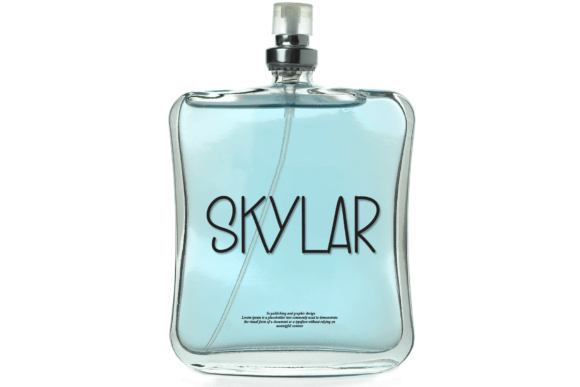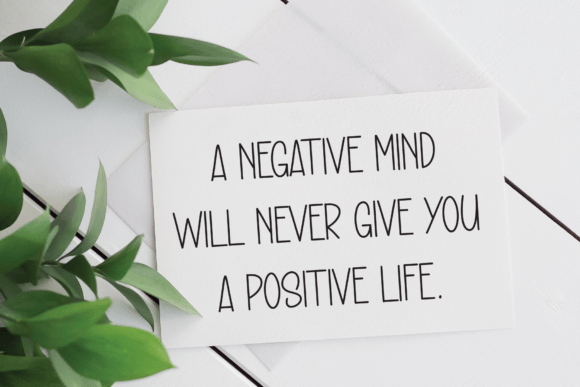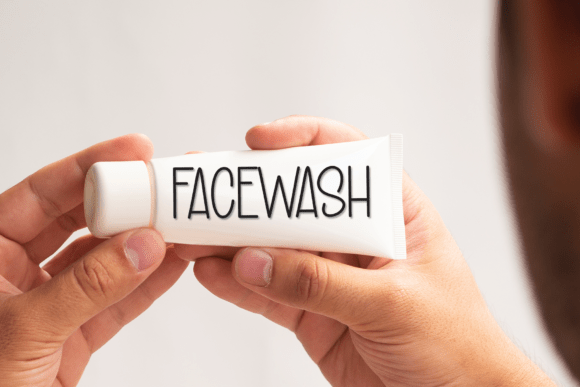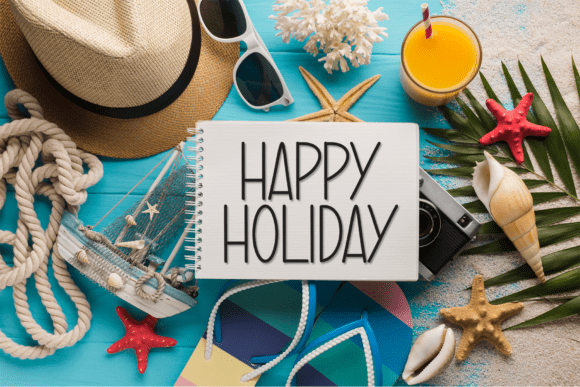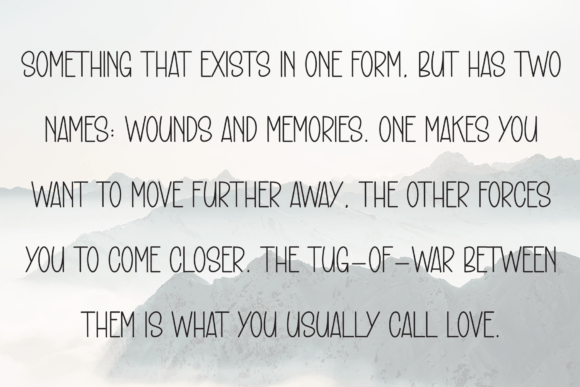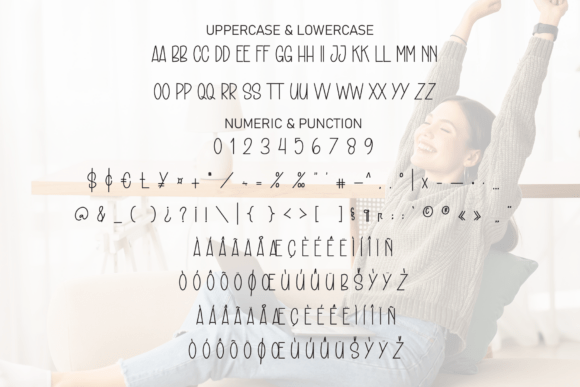
Unleash Your Creativity with Free Time Font
Who hasn’t felt that rush of excitement when brainstorming a new design project? The blank canvas, the endless possibilities, the thrill of bringing a concept to life. For designers, those moments of creative freedom are what make our jobs truly rewarding. But let’s face it – sometimes, we need a little extra inspiration to take our work to the next level.
Enter Free Time Font, a charming, personality-infused handwritten display font that’s sure to add a touch of whimsy to your designs. With its sweet and friendly vibe, this font is perfect for crafting captivating wedding invitations, creating heartwarming cards, or simply adding a playful twist to your next creative project. Whether you’re a seasoned pro or just starting out, Free Time Font is the perfect tool to inject some adorableness into your work and make your designs truly unforgettable.
Key Features of Free Time Font
- Unique Characteristics: The font features a unique blend of modern and vintage elements, creating a distinctive and eye-catching design.
- Font Weight and Style: Available in regular, bold, italic, and bold-italic styles, allowing designers to experiment with different looks and effects.
Designer Review: Free Time Font
At first glance, I thought the Free Time Font was going to be a simple, run-of-the-mill sans-serif font. But, I was pleasantly surprised by its unique character and versatility.
Here are some things that work well about the Free Time Font:
- ✨ Unique character set: The font has a distinct personality that sets it apart from more generic sans-serif fonts.
- ✨ Versatile: The font works well in both digital and print applications, from headings to body text.
- ✨ Good legibility: The font is easy to read, even at smaller font sizes.
However, there are a few limitations to the Free Time Font:
- ⚠️ Limited language support: The font may not support certain languages or character sets, which could be a limitation in certain applications.
- ⚠️ Limited customization options: While the font is versatile, it may not be as customizable as some other fonts.
Overall, I’m impressed by the Free Time Font. It’s a great option for designers who want a unique and versatile font that’s easy to read. While it may have some limitations, I think the benefits outweigh the drawbacks.
To get the most out of the Free Time Font, try using it in combination with bold or italic text to create visual interest.
Experiment with different font sizes and colors to create a unique and eye-catching design.
The Free Time Font is perfect for creating:
- Invitations and event announcements.
- Blog posts and articles.
- Infographics and social media graphics.